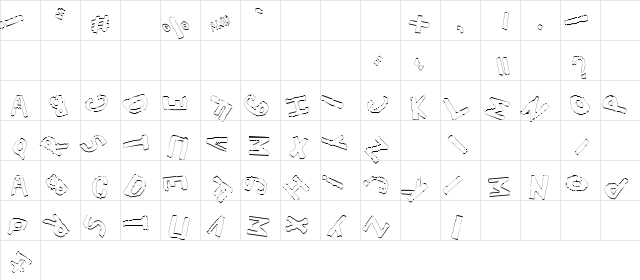
YES_outlinerotated Regular Font Preview
YES_outlinerotated Regular
Design Context for YES_outlinerotated Typeface
YES_outlinerotated is built around its visual character rather than neutral utility — its distinctive forms are designed to make an impression at display sizes.
Font Pairing: Pair with a clean neutral sans-serif for body copy to let YES_outlinerotated's character lead without overwhelming the composition.
Pro Tip: Treat YES_outlinerotated as the centrepiece of your typographic hierarchy. One strong heading set in a decorative face can carry an entire layout.